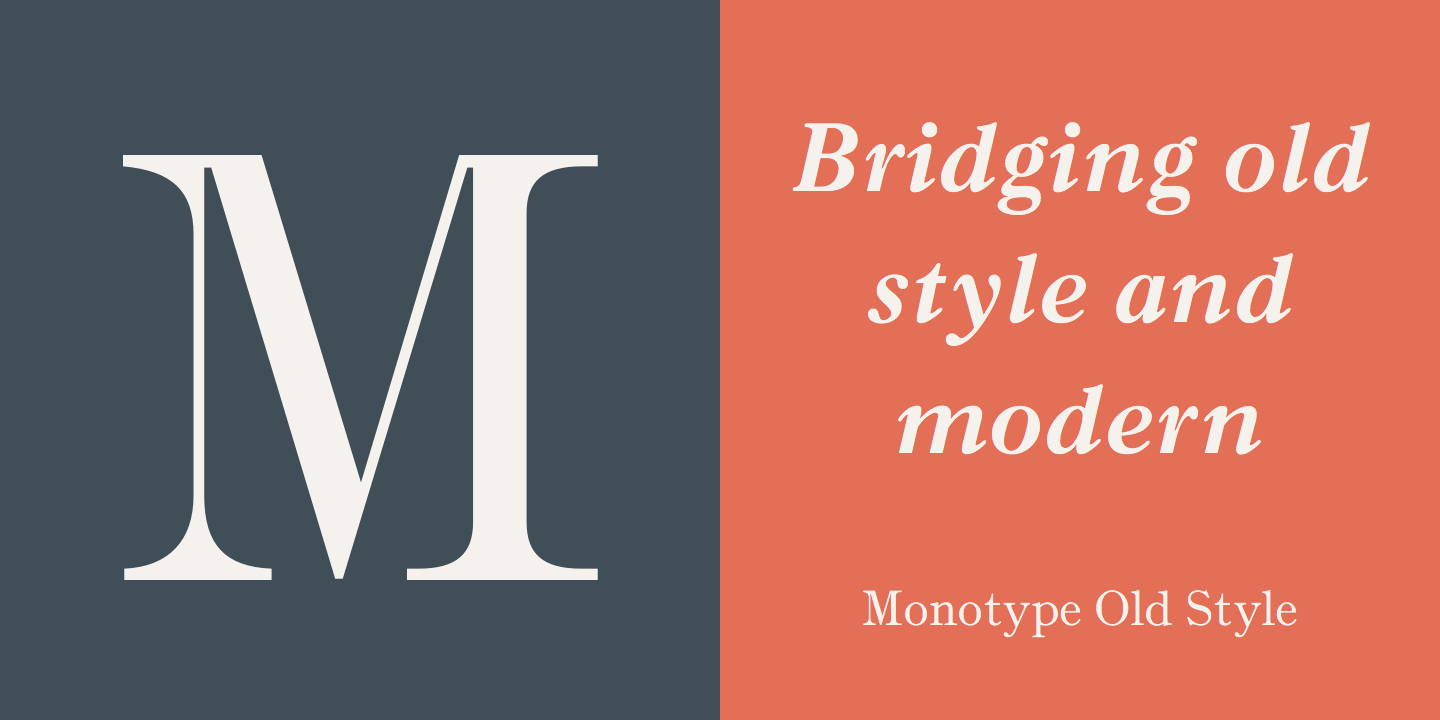
Monotype Old Style Font is perfect for classic book publishing, historical document reproductions, vintage newspaper layouts, traditional letterpress printing, antiquarian bookshops, heritage brand communications, and timeless editorial design that requires authentic old-style typography.
This font is exciting because it preserves the elegant craftsmanship of traditional letterpress typography, featuring classical serif letterforms that convey literary heritage, scholarly tradition, and the enduring beauty of fine book design while maintaining exceptional readability.
The Monotype Old Style Font family includes regular, italic, and bold weights with small caps variants, offering uppercase and lowercase letters, old-style numerals, classical ligatures, traditional punctuation marks, and typographic ornaments designed for distinguished publishing applications.
Traditional publishers consistently choose Monotype Old Style Font Free Download for projects requiring authentic typographic heritage and classical publishing excellence. This distinguished typeface transforms modern publications into compelling statements of literary tradition that immediately resonate with readers seeking genuine book culture and scholarly authenticity. The font's classical character makes it exceptionally effective for university presses, literary journals, and heritage publishers where typographic tradition and reading comfort must be perfectly balanced for extended literary engagement. Its historical foundation bridges centuries of printing excellence with contemporary publishing standards, making it invaluable for publishers celebrating literary heritage and typographic craftsmanship. The beautifully proportioned letterforms maintain their classical elegance across fine press editions and digital reading platforms, ensuring consistent brand recognition and literary authority. Whether you're developing literary imprint identities, creating classical text editions, or designing scholarly publication systems, this typeface provides the authentic voice and visual tradition that distinguishes serious literary publishing from commercial book production, establishing immediate credibility among discerning readers who appreciate the enduring qualities of classical typography and expect the highest standards of literary presentation in their reading experiences and scholarly pursuits.